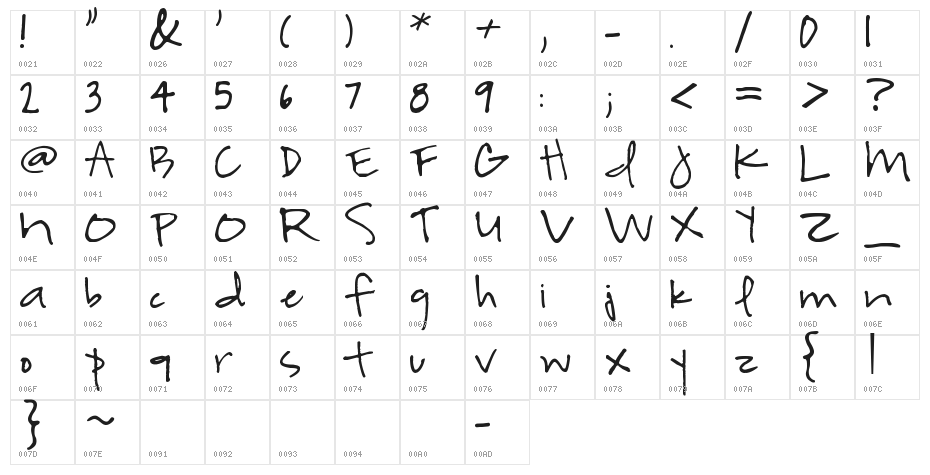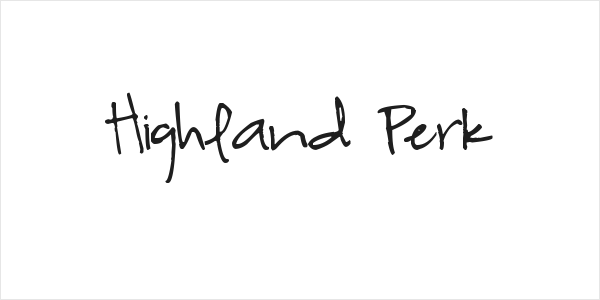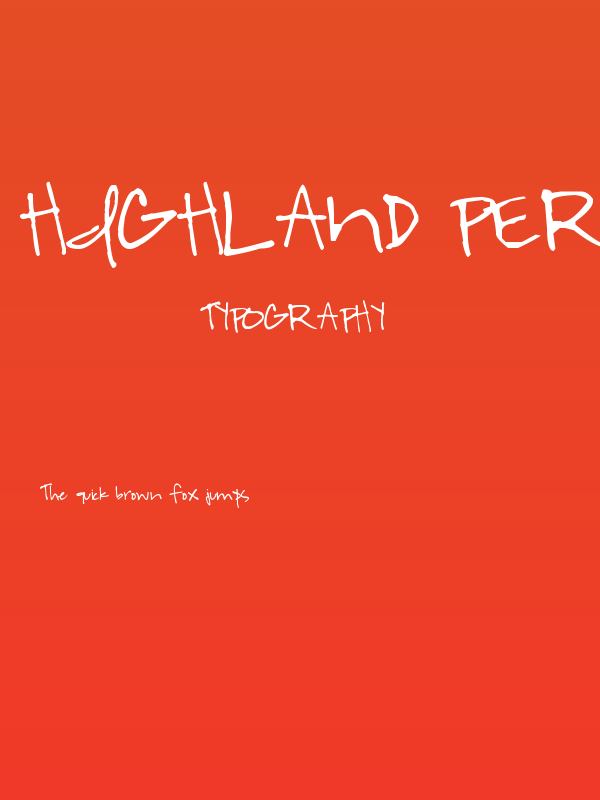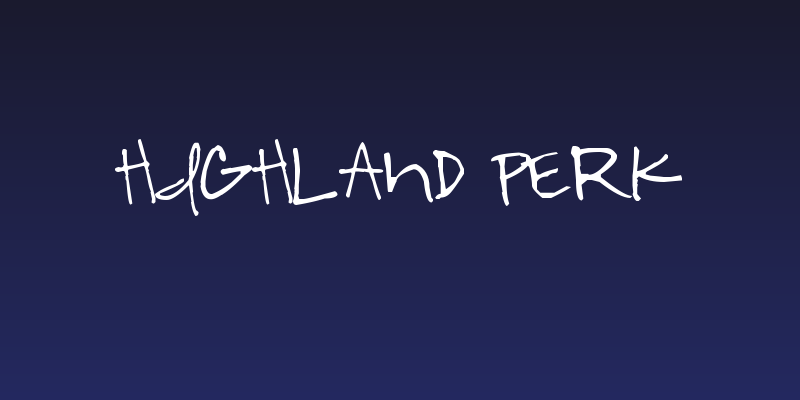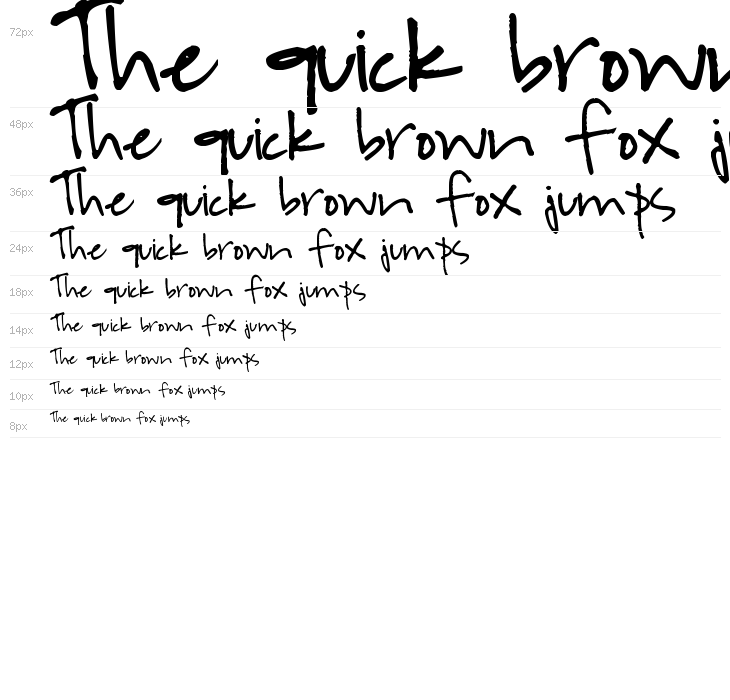
Highland Perk Font
Highland Perk Description
This font exudes a casual, handwritten style with a playful and informal appearance. The letters are slightly slanted, giving it a dynamic and energetic feel. The strokes vary in thickness, adding a touch of spontaneity and authenticity, reminiscent of a quick, personal note. The uppercase letters are bold and prominent, while the lowercase letters maintain a consistent flow, enhancing readability. The numerals are clear and distinct, matching the overall informal style. Special characters are creatively integrated, maintaining the font's cohesive look.
| Use Case | Logos, Headlines, Informal Text |
| Proposed Projects | Ideal for personal notes, casual invitations, greeting cards, and creative branding projects. |